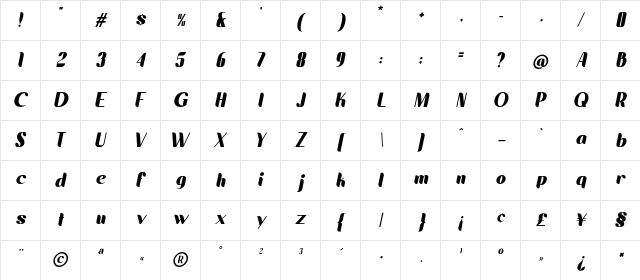
Complete Laksmi Bold Italic glyph index. Displaying only characters natively supported by Laksmi Bold Italic font.
Laksmi is a composed and adaptable typeface that performs quietly and consistently across a wide range of design contexts. The slanted form adds forward momentum and visual energy. Its bold stroke weight gives it real presence on the page.
Pro Tip: Use Laksmi for emphasis, pull quotes, and subheadings where its slanted energy can add rhythm to the layout.